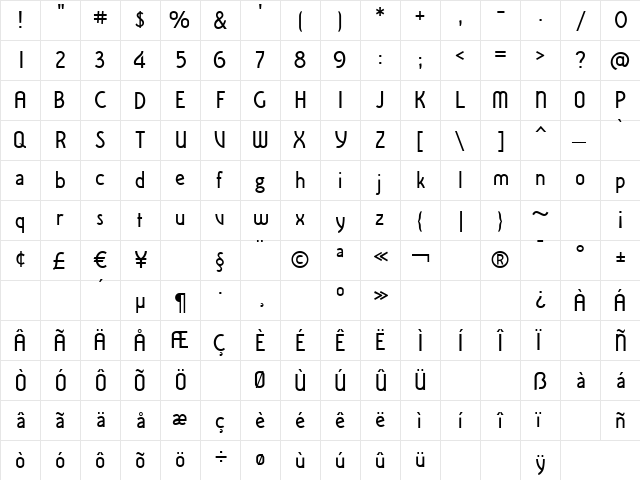
Iru1 Regular Font Preview
Iru1 Regular
Design Context for Iru1 Typeface
Iru1 offers clean, dependable letterforms without strong stylistic allegiance, making it a practical choice for designers who need flexibility.